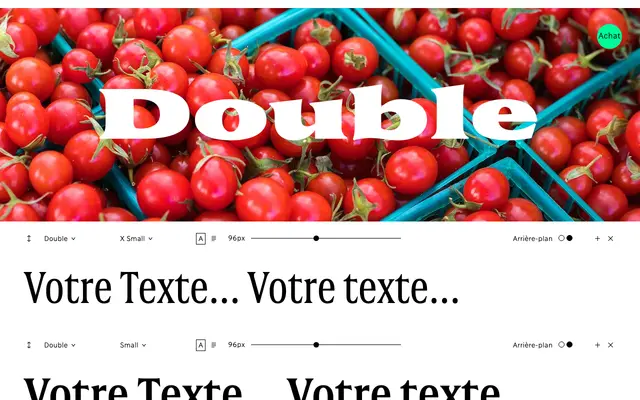
Double
Double specimen from Coppers and Brasses
A five-style display family drawn from painted building advertisements in Old Montreal, where weight and width expand together along a single axis.
Inspired by the hand-painted signage covering brick buildings in Vieux-Montréal, the family follows a linked progression: as each style grows heavier, it also grows wider. This means the five styles, from X Small to X Large, each carry a distinct spatial logic suited to different compositional problems. X Small fills space with words; X Large leaves it conspicuously bare.
A display typeface with a two-axis progression linking weight to width simultaneously, drawn from painted sign lettering traditions. Its extreme proportions and poster orientation place it firmly in the display category.